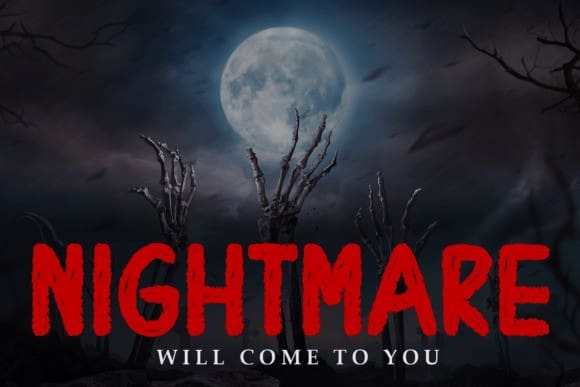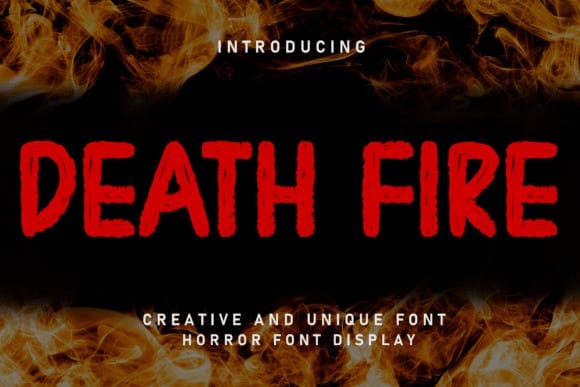
Death Fire Font
Death FIre Font is an incredibly unique display font. Masterfully designed to become a true favorite, this font has the potential to bring each of your creative ideas to the highest level!